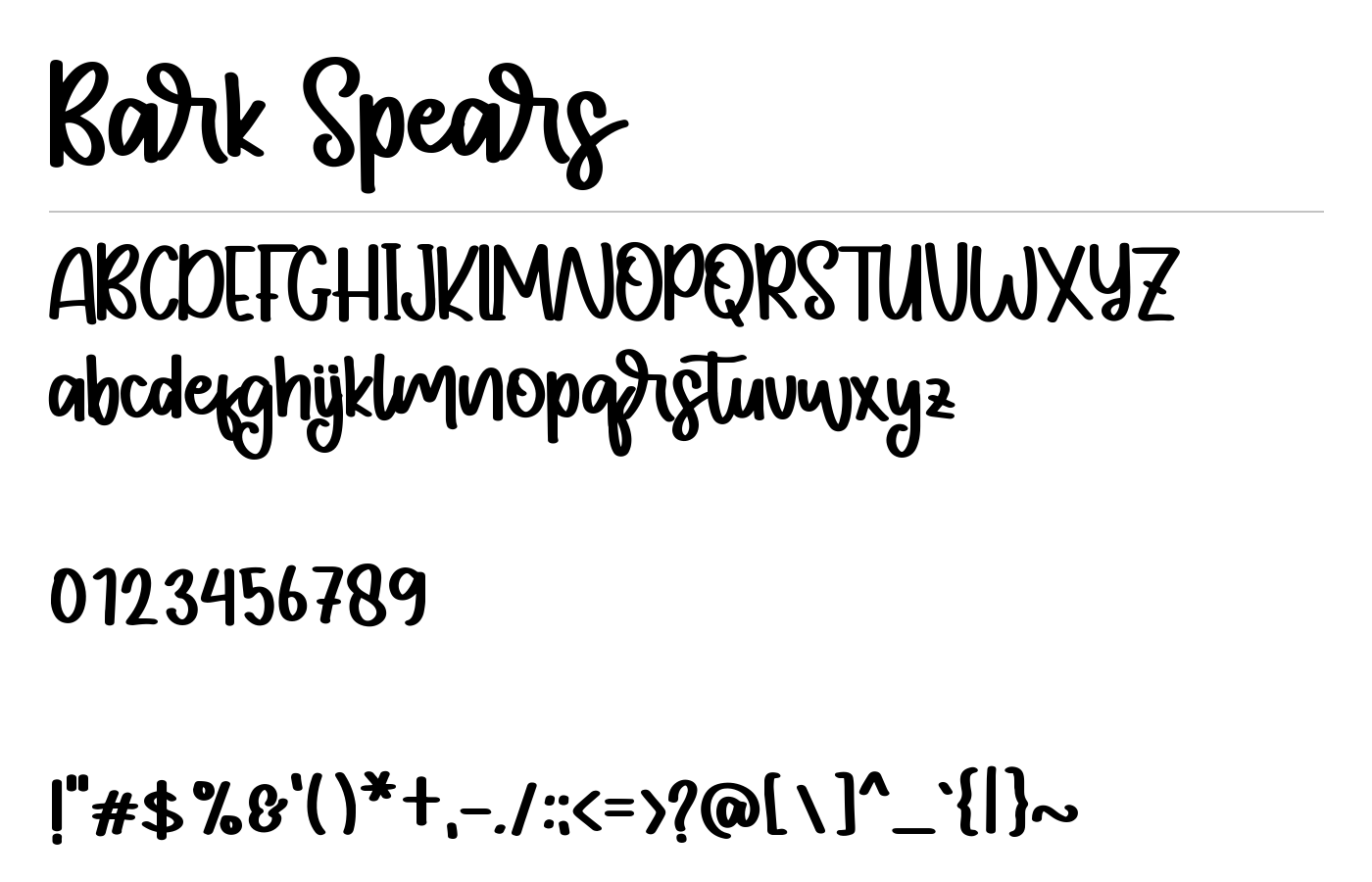
Bark Spears is a playful and lively handwritten script font with a casual, friendly feel. It features smooth, rounded strokes and energetic letterforms with a mix of single and double-story characters, making it perfect for creative projects, greeting cards, and informal branding. Its whimsical style brings warmth and personality, ideal for designs that want to convey approachability and charm.
Bark Spears Font
About Bark Spears Font
| Font family | Bark Spears Font |
| Designer | Dian Haniffan Hadi |